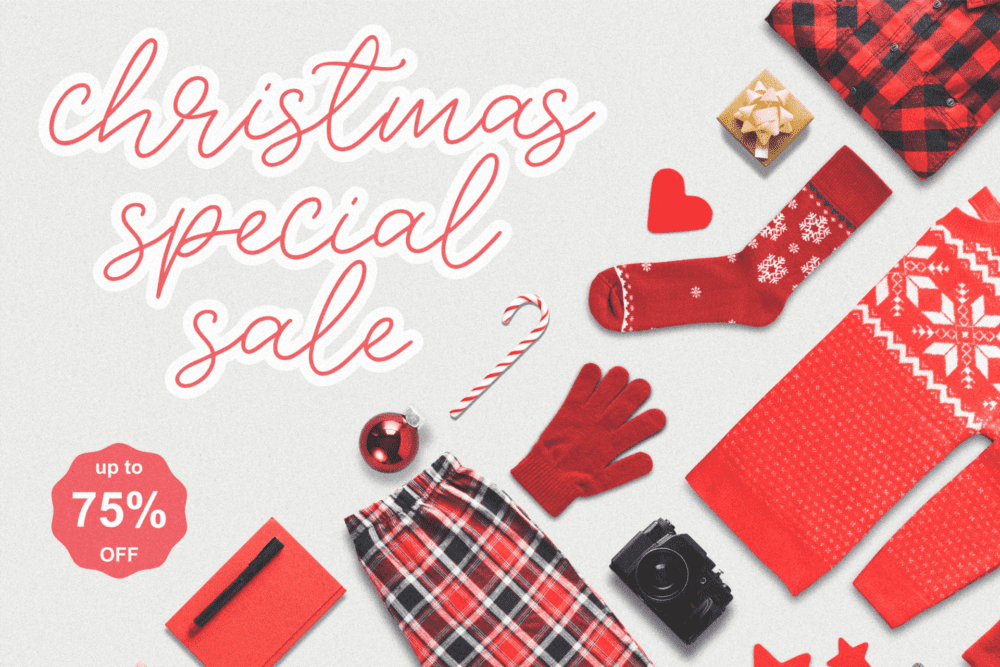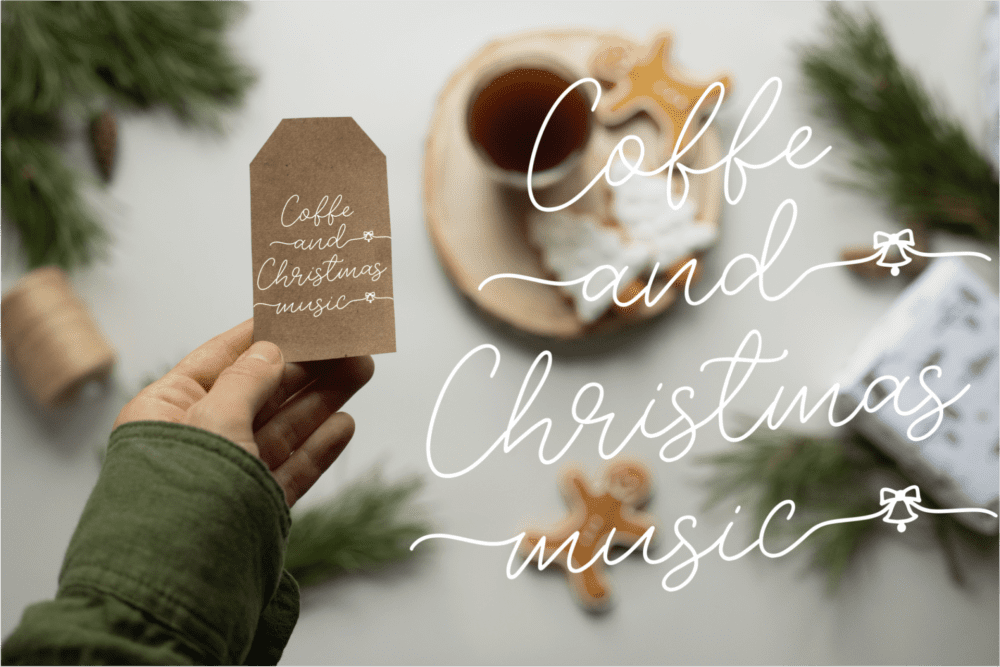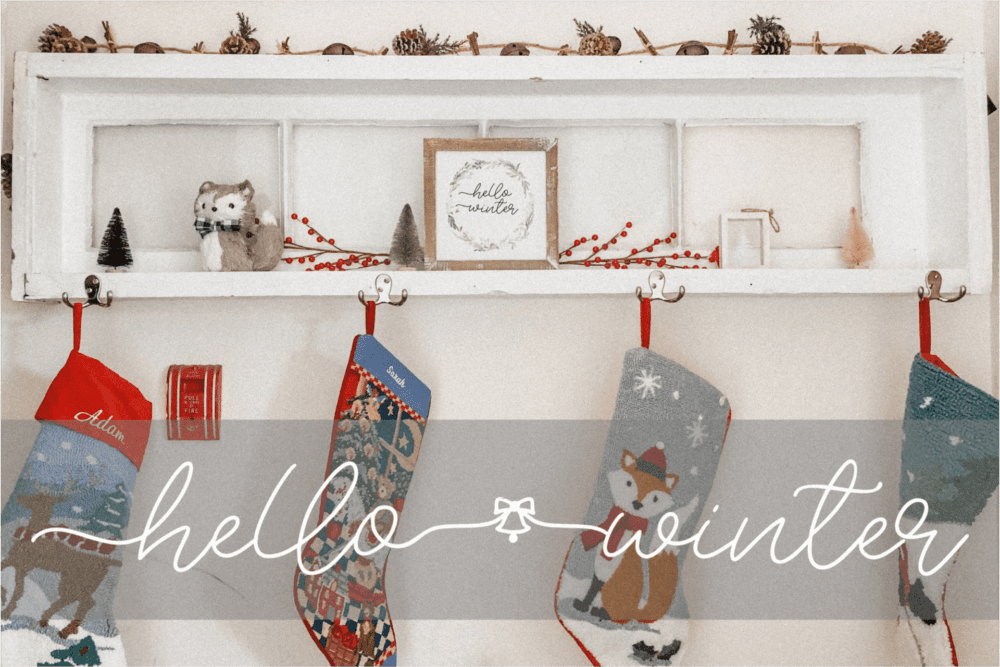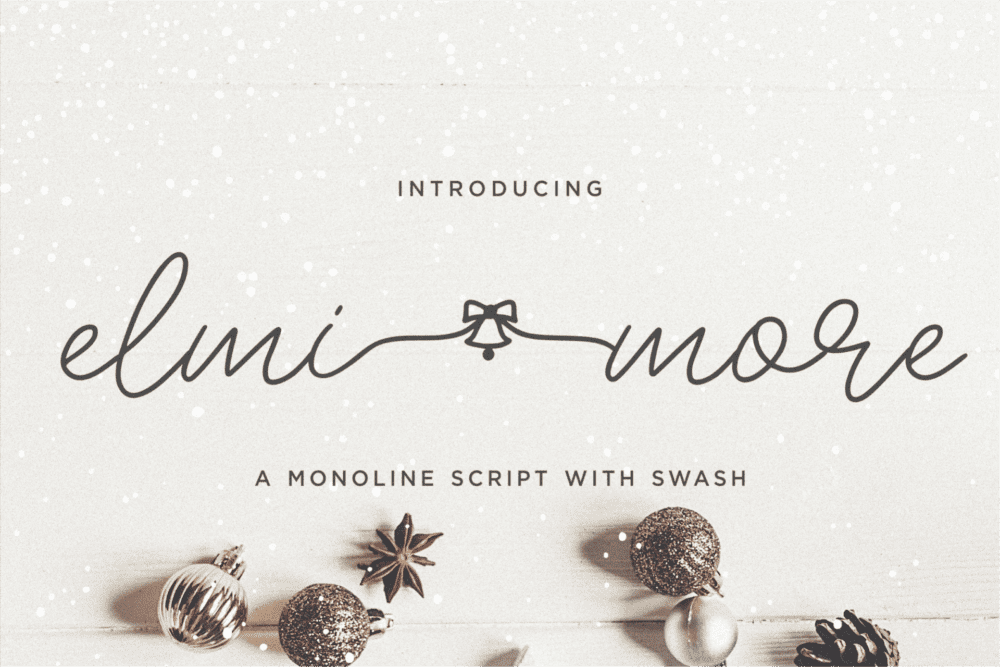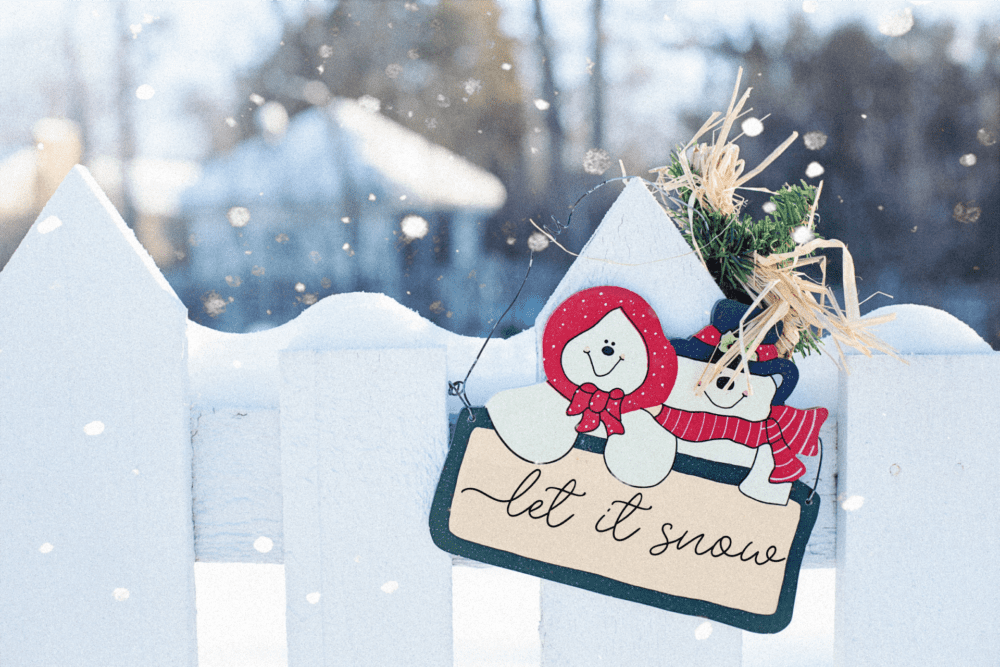
Elmimore Font
Elmimore is a magical script font carefully created with a touch of elegance. This font is PUA encoded which means you can access all of the glyphs and swashes with ease!